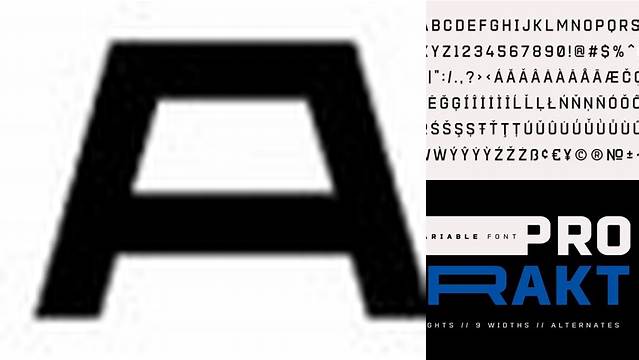
Protrakt Variable Extra Bold is a stunning and versatile font that has captured the attention of designers and typographers worldwide. Its bold and impactful design makes it perfect for headlines, posters, branding, and a variety of other creative projects. Guys, if you're looking to make a statement with your typography, Protrakt Variable Extra Bold is definitely a font you should consider. In this comprehensive guide, we'll dive deep into the world of Protrakt Variable Extra Bold, exploring its features, benefits, and where you can find it for free download. We'll also discuss how to use it effectively in your designs and answer some frequently asked questions. So, let's get started and unlock the potential of this amazing font!
The allure of Protrakt Variable Extra Bold lies in its unique blend of boldness and elegance. It's not just another heavy font; it's a typeface that commands attention while maintaining a sense of sophistication. The variable nature of the font adds another layer of versatility, allowing you to fine-tune the weight and width to perfectly match your design needs. Whether you're working on a website, a print project, or a social media campaign, Protrakt Variable Extra Bold can help you create a visual impact that resonates with your audience. The font's clean lines and strong presence make it highly readable, even at smaller sizes, ensuring that your message is conveyed clearly and effectively. Furthermore, the availability of free downloads makes Protrakt Variable Extra Bold accessible to everyone, from seasoned professionals to budding designers. This accessibility, combined with its exceptional design qualities, has contributed to its widespread popularity and adoption across various creative fields. So, if you're eager to elevate your design projects with a font that exudes confidence and style, Protrakt Variable Extra Bold is the perfect choice.
Protrakt Variable Extra Bold's distinctive characteristics set it apart from other bold fonts. Its variable nature allows for seamless adjustments in weight and width, offering unparalleled flexibility in design applications. This adaptability makes it suitable for a wide range of projects, from impactful headlines to concise body text. The font's robust letterforms exude confidence and authority, ensuring your message is conveyed with clarity and strength. The clean lines and balanced proportions contribute to its readability, even at smaller sizes, making it ideal for both print and digital media. Whether you're designing a website, a poster, or a branding campaign, Protrakt Variable Extra Bold provides the visual punch you need to capture attention and leave a lasting impression. Its versatility extends to various design styles, seamlessly blending with modern, minimalist, and even more traditional aesthetics. The font's ability to adapt to different contexts makes it a valuable asset in any designer's toolkit. In addition to its visual appeal, Protrakt Variable Extra Bold is often available for free download, making it accessible to a broad audience of designers and creatives. This accessibility, coupled with its exceptional design qualities, has solidified its position as a go-to font for those seeking a bold and impactful typeface. So, if you're looking for a font that combines strength, versatility, and accessibility, Protrakt Variable Extra Bold is an excellent choice.
Let's explore the key features that make Protrakt Variable Extra Bold such a popular and powerful font choice.
Variable Font Technology
One of the most significant features of Protrakt Variable Extra Bold is its variable font technology. This allows you to adjust the font's weight and width along a continuous scale, giving you incredible flexibility in your design. Guys, imagine being able to fine-tune the font to perfectly match your layout, creating a truly customized look and feel. Variable fonts are the future of typography, and Protrakt Variable Extra Bold is a prime example of their potential.
The beauty of variable font technology lies in its ability to provide a spectrum of font styles within a single font file. This not only reduces file size but also streamlines the design process. With Protrakt Variable Extra Bold, you're not limited to predefined weights like regular, bold, or extra bold. Instead, you have a continuous range of weights at your disposal, allowing you to create subtle variations or dramatic contrasts as needed. This level of control empowers designers to achieve a level of precision that was previously unattainable with traditional font formats. For example, you can slightly adjust the weight of the font to improve readability on different screen sizes or to create a visual hierarchy within your text. The variable nature of Protrakt Variable Extra Bold also opens up exciting possibilities for animation and interactive design, where font weight and width can be dynamically adjusted based on user input or other triggers. This adaptability makes it a valuable asset in any modern designer's toolkit, enabling them to push the boundaries of typographic expression. Furthermore, the efficient file size of variable fonts contributes to faster loading times on websites and applications, enhancing the user experience.
The practical implications of variable font technology in Protrakt Variable Extra Bold are vast and impactful. For web designers, it means faster loading times and improved website performance, as a single variable font file replaces multiple static font files. This is crucial for optimizing user experience and SEO rankings. For graphic designers, the flexibility to adjust font weight and width on a granular level opens up a world of creative possibilities. You can create subtle variations in text to emphasize certain words or phrases, or you can use extreme weights to create bold and eye-catching headlines. The ability to customize the font's appearance to such a degree allows for a more cohesive and polished design, ensuring that every element works in harmony. Moreover, variable fonts are inherently responsive, meaning they adapt seamlessly to different screen sizes and resolutions. This is particularly important in today's multi-device world, where designs need to look great on everything from smartphones to desktop computers. The variable nature of Protrakt Variable Extra Bold also simplifies the process of creating different font styles for different purposes. Instead of having to load multiple font files, you can simply adjust the variable parameters within the font itself. This saves time and reduces the complexity of managing your font library. Overall, variable font technology is a game-changer for the design industry, and Protrakt Variable Extra Bold is a shining example of its potential.
Bold and Impactful Design
As the name suggests, Protrakt Variable Extra Bold boasts a bold and impactful design that demands attention. Its strong letterforms and heavy weight make it ideal for headlines, posters, and any application where you need to make a statement. The font's clean lines and modern aesthetic ensure that it remains legible and professional, even at large sizes.
The bold and impactful design of Protrakt Variable Extra Bold is not just about visual weight; it's about conveying a sense of confidence and authority. The font's strong letterforms command attention, making it an excellent choice for headlines, logos, and branding materials. Its heavy weight ensures that it stands out in any design, capturing the viewer's eye and leaving a lasting impression. However, the font's clean lines and modern aesthetic prevent it from feeling overwhelming or cluttered. Instead, it exudes a sense of sophistication and professionalism, making it suitable for a wide range of applications. Whether you're designing a website, a print advertisement, or a social media campaign, Protrakt Variable Extra Bold can help you create a visual impact that resonates with your audience. Its bold presence is particularly effective in conveying important messages or highlighting key information. The font's legibility, even at large sizes, ensures that your message is delivered clearly and effectively. Furthermore, its versatility allows it to be used in conjunction with other fonts, creating a balanced and visually appealing design. Protrakt Variable Extra Bold's ability to combine boldness with clarity makes it a valuable asset in any designer's toolkit, empowering them to create designs that are both striking and effective.
The effectiveness of Protrakt Variable Extra Bold in creating visual impact stems from its carefully crafted letterforms and balanced proportions. Each character is designed to exude strength and confidence, while maintaining a sense of elegance and refinement. The font's heavy weight ensures that it stands out in any design, but its clean lines prevent it from feeling too aggressive or overwhelming. This balance is crucial for creating designs that are both eye-catching and professional. The font's boldness is particularly effective in conveying important messages or highlighting key information. For example, it can be used to create striking headlines that grab the reader's attention or to emphasize key phrases within a body of text. Its legibility, even at large sizes, ensures that your message is delivered clearly and effectively. Protrakt Variable Extra Bold's versatility extends to various design styles, seamlessly blending with modern, minimalist, and even more traditional aesthetics. This adaptability makes it a valuable asset in any designer's toolkit, allowing them to create designs that are both visually appealing and aligned with their brand identity. Whether you're designing a website, a poster, or a branding campaign, Protrakt Variable Extra Bold can help you create a visual impact that resonates with your audience and communicates your message effectively.
Wide Range of Weights and Styles
While the